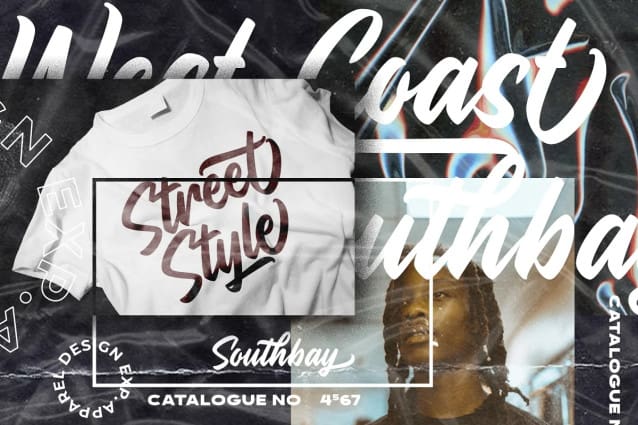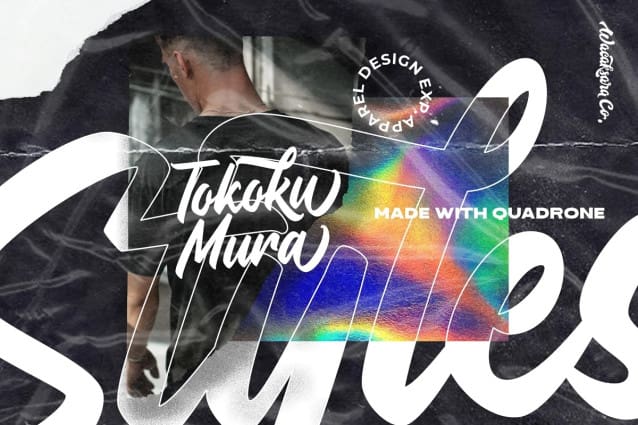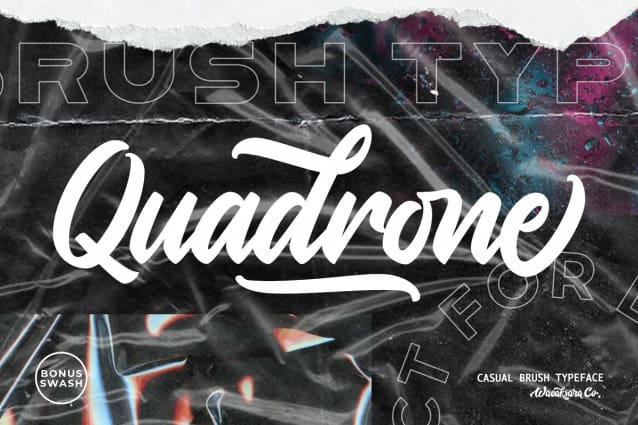
Quadrone Script Font
Quadrone Script Font is a hand-brush script font inspired by urban fashion movement. This font is great for your next creative project such as Logotype, printed quotes, invitations, cards, product packaging, headers, Letterhead, Poster, Apparel Design, Label, and etc.
Quadrone Script Font is available with so many variations on each character in Opentype include Uppercase, Lowercase, Numerals & Punctuations, Stylistic Styles, Ligatures, Discretionary Ligatures, and Titling to make it look even more natural than a standard font. You will also discover extras swash added to give that finishing touch to your texts.